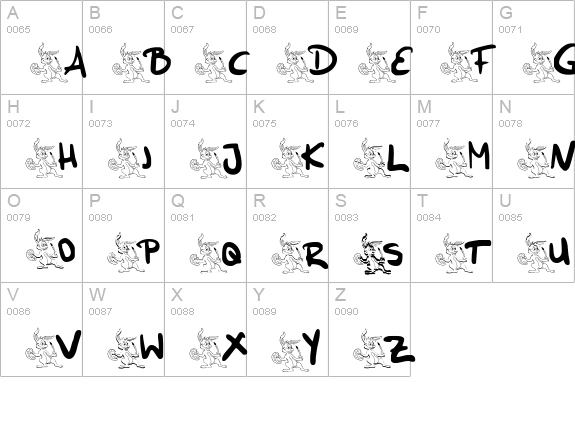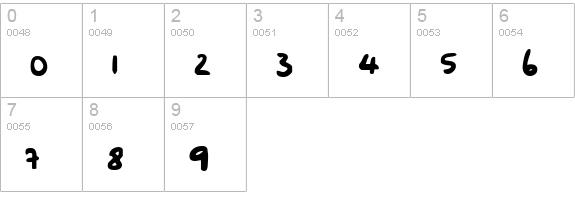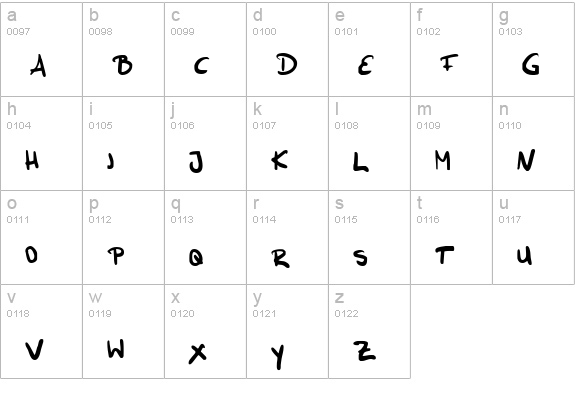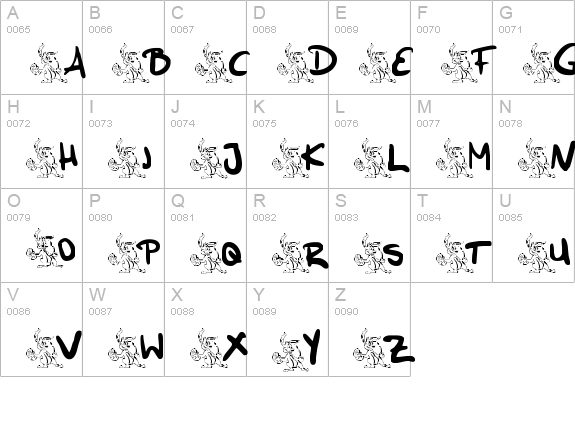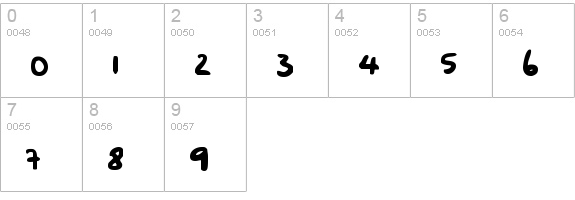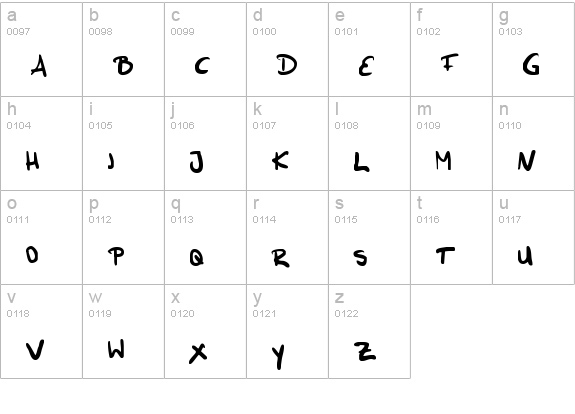
Introducing Funny Bunny font, a whimsical and playful typeface that will bring a touch of hilarity to your designs. With its quirky letterforms and mischievous curves, this font is guaranteed to put a smile on anyone's face. Whether you're creating greeting cards, party invitations, or designing a fun logo, Funny Bunny font is the perfect choice to add a lighthearted and humorous touch to your projects. Its unique character designs, featuring a mix of bold and thin strokes, create a delightful visual rhythm that captures the essence of laughter. But that's not all – Funny Bunny font is not only amusing, but also freely available to download at FontsMarket.com. Yes, you read it right. This font can be yours without any cost, making it the ideal choice for budget-conscious designers and creatives who want to add a dash of fun to their work. So, why wait? Embrace the silliness and bring a smile to your audience's faces with Funny Bunny font. Download it for free at FontsMarket.com and let your creativity run wild with this delightful and playful typeface.